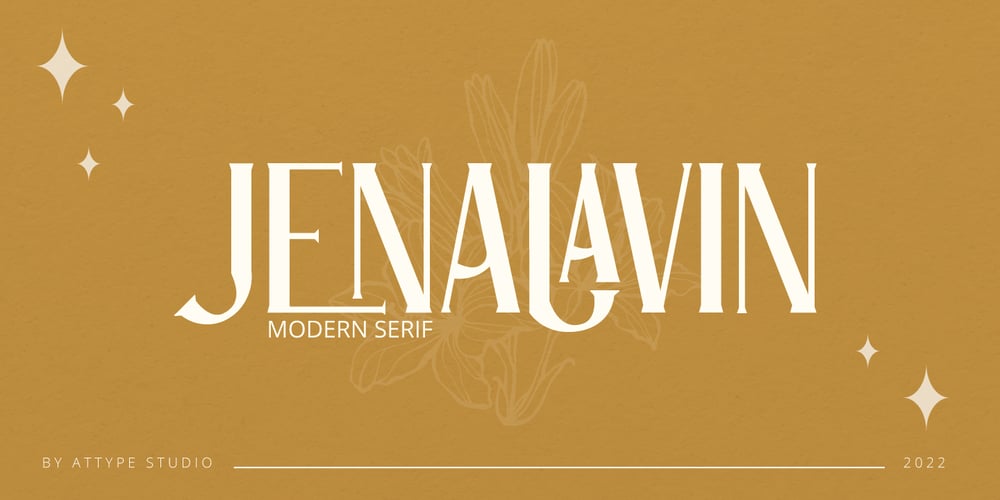
Jenalavin Font Family was designed by Fadli Ramadhan Iskandar and published by Attype Studio. Jenalavin contains 1 styles and family package options. Jenalavin is a modern serif font with elegant and beautiful touch, with smooth curves and sharp edges. Jenalavin comes with punctuations, numerals and ligatures for a more enjoyable and visually appealing design.If you want to create a luxury design Jenalavin can be an alternative for your choice.Jenalavin is perfect for luxury product, branding, logo, invitation, stationery, product packaging, merchandise, monogram, blog design, game titles, cute style design, Book/Cover Title and more.Features :- Jenalavin Font- Ligatures- Multilingual, US Roman, Latin 1 Support —This Font Support Language:Afrikaans, Albanian,Asu, Basque, Bemba, Bena, Breton, Catalan, Chiga, Cornish, Danish, Dutch, English, Estonian, Faroese, Filipino, Finnish, French, Friulian, Galician, German, Gusii, Indonesian, Irish, Italian, Kabuverdianu, Kalenjin, Kinyarwanda, Luo, Luxembourgish, Luyia, Machame, Makhuwa-Meetto, Makonde, Malagasy, ManxMorisyen, North Ndebele, Norwegian Bokmål, Norwegian Nynorsk, Nyankole, Oromo, Portuguese, Quechua, Romansh, Rombo, Rundi, Rwa, Samburu, Sango, Sangu, Scottish Gaelic, Sena, Shambala, Shona, Soga, Somali, Spanish, Swahili, Swedish, Swiss German, Taita, Teso, Uzbek (Latin), Volapük, Vunjo, Zulu,If you have any question, don’t hesitate to contact us.